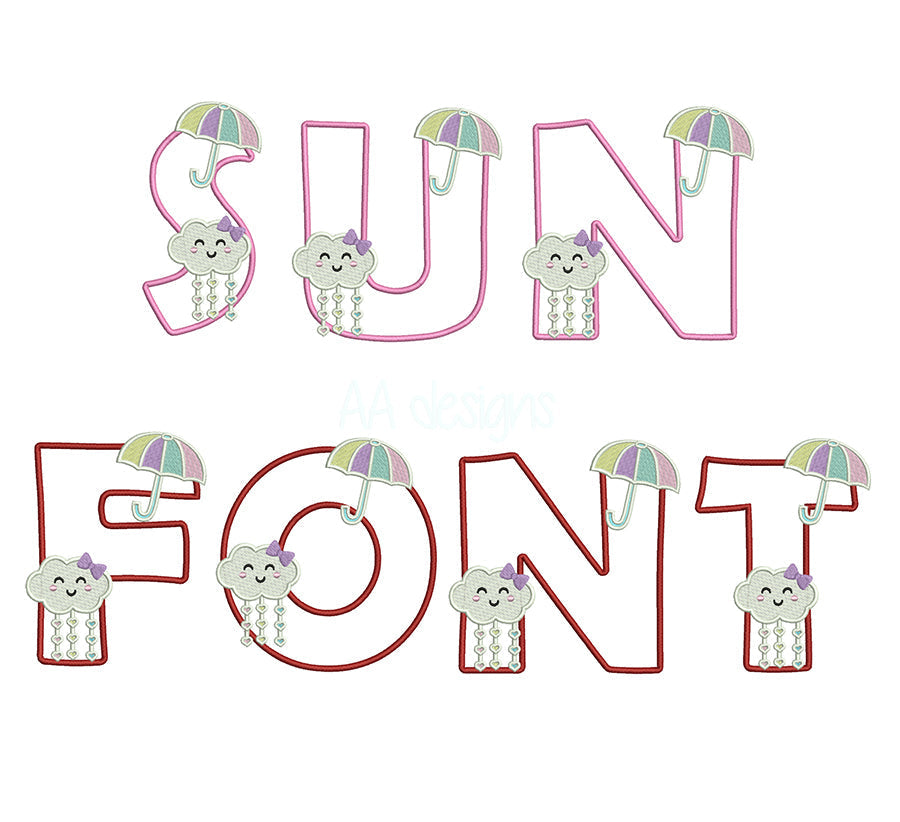
If you want to create bold, fabric-filled lettering that stands out on any project, applique embroidery fonts are your best friend. Unlike standard fill stitch fonts, applique fonts use a piece of fabric layered under the stitches — creating a rich, textured look with less thread and faster stitch times.
What is Applique Embroidery?
Applique embroidery is a technique where a piece of fabric is placed on top of the base fabric and secured with embroidery stitches around the edges. The result is a layered, dimensional look that's perfect for:
- Kids' clothing and onesies
- Sports jerseys and team uniforms
- Tote bags and home décor
- Personalized gifts and monograms
Why Choose Applique Fonts?
- Faster stitch time — less thread coverage needed
- Bold, colorful results — fabric adds texture and dimension
- Great for large lettering — ideal for sizes 2 inches and above
- Beginner-friendly — easier to execute than dense fill fonts
Top 10 Applique Embroidery Fonts
1. Sun Baby Applique Embroidery Font
Playful and cheerful, the Sun Baby font is perfect for children's clothing and nursery projects. The rounded, friendly letterforms work beautifully in bright, fun fabrics.
Best for: Baby onesies, kids' shirts, nursery décor
2. Wild Applique Embroidery Font
Bold and adventurous, the Wild font brings an energetic, free-spirited vibe to any project. Great for outdoor and nature-themed designs.
Best for: Adventure gear, kids' clothing, nature themes
3. Crispy Chips Applique Embroidery Font
Fun and quirky with a unique character, Crispy Chips adds personality to any embroidery project. Its distinctive style makes it instantly recognizable.
Best for: Novelty items, fun gifts, casual wear
4. Cartoon Applique Embroidery Font
Inspired by classic cartoon lettering, this font is playful and eye-catching. Perfect for children's projects and anyone who loves a fun, animated aesthetic.
Best for: Kids' clothing, party favors, novelty gifts
5. Football Applique Embroidery Font
Designed with sports in mind, this bold font is built for team spirit. The strong letterforms hold up beautifully in team colors on jerseys and bags.
Best for: Football jerseys, team bags, sports gear
6. Volleyball Applique Embroidery Font
A sporty, dynamic font perfect for volleyball teams and athletic wear. Clean lines and bold shapes make it easy to read from a distance.
Best for: Volleyball uniforms, sports bags, team gifts
7. Soccer Ball Applique Embroidery Font
Celebrate the beautiful game with this soccer-themed applique font. Perfect for youth leagues, school teams, and soccer fans of all ages.
Best for: Soccer jerseys, team bags, youth sports
8. Tennis Applique Embroidery Font
Elegant yet sporty, the Tennis font is ideal for tennis clubs, racket bags, and athletic apparel. A sophisticated choice for sports embroidery.
Best for: Tennis bags, club apparel, sports gifts
9. Basketball Applique Embroidery Font
Bold and powerful, this basketball-inspired font is made for the court. Strong letterforms in team colors look amazing on jerseys and gym bags.
Best for: Basketball uniforms, gym bags, team spirit wear
10. Football App Embroidery Font
Another fantastic football-themed applique font with a slightly different style — great for mixing and matching with other sports designs for a complete team look.
Best for: Football gear, team uniforms, sports accessories